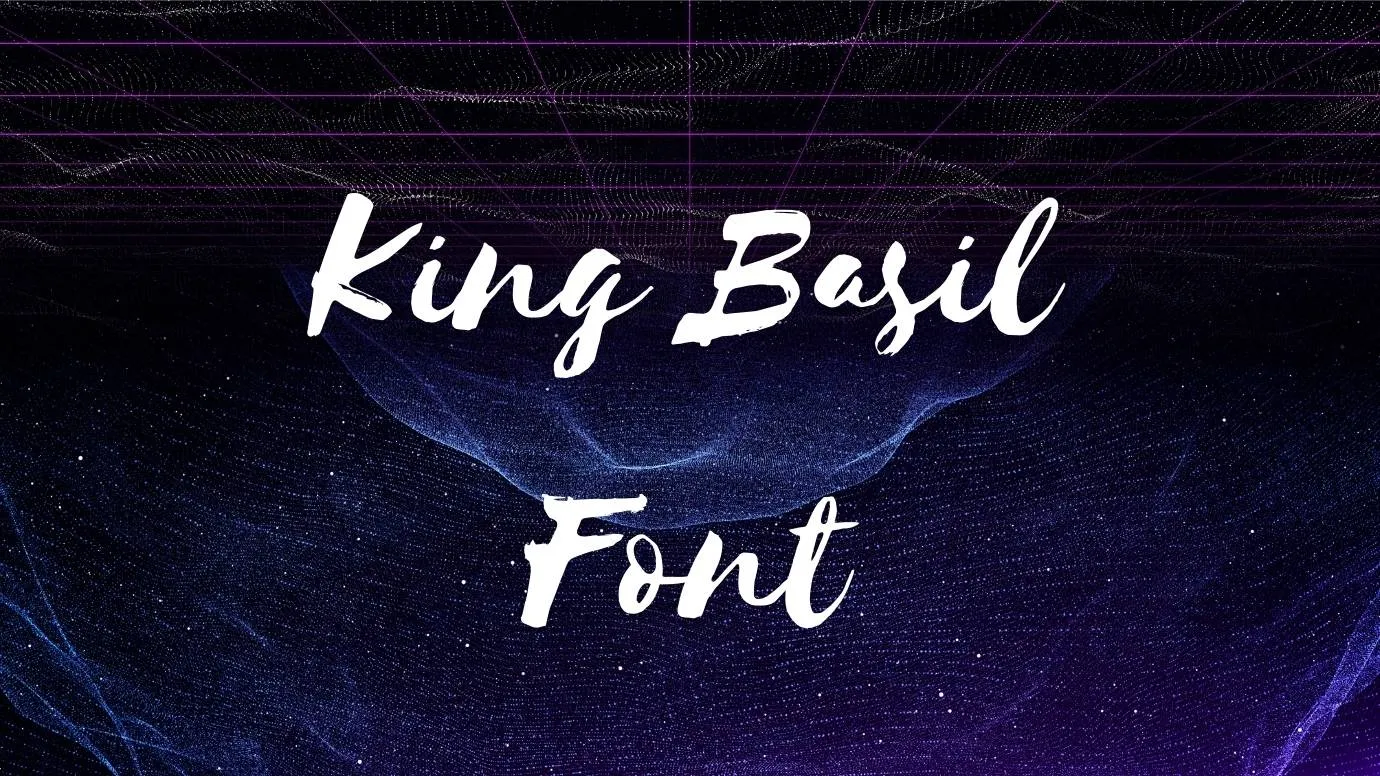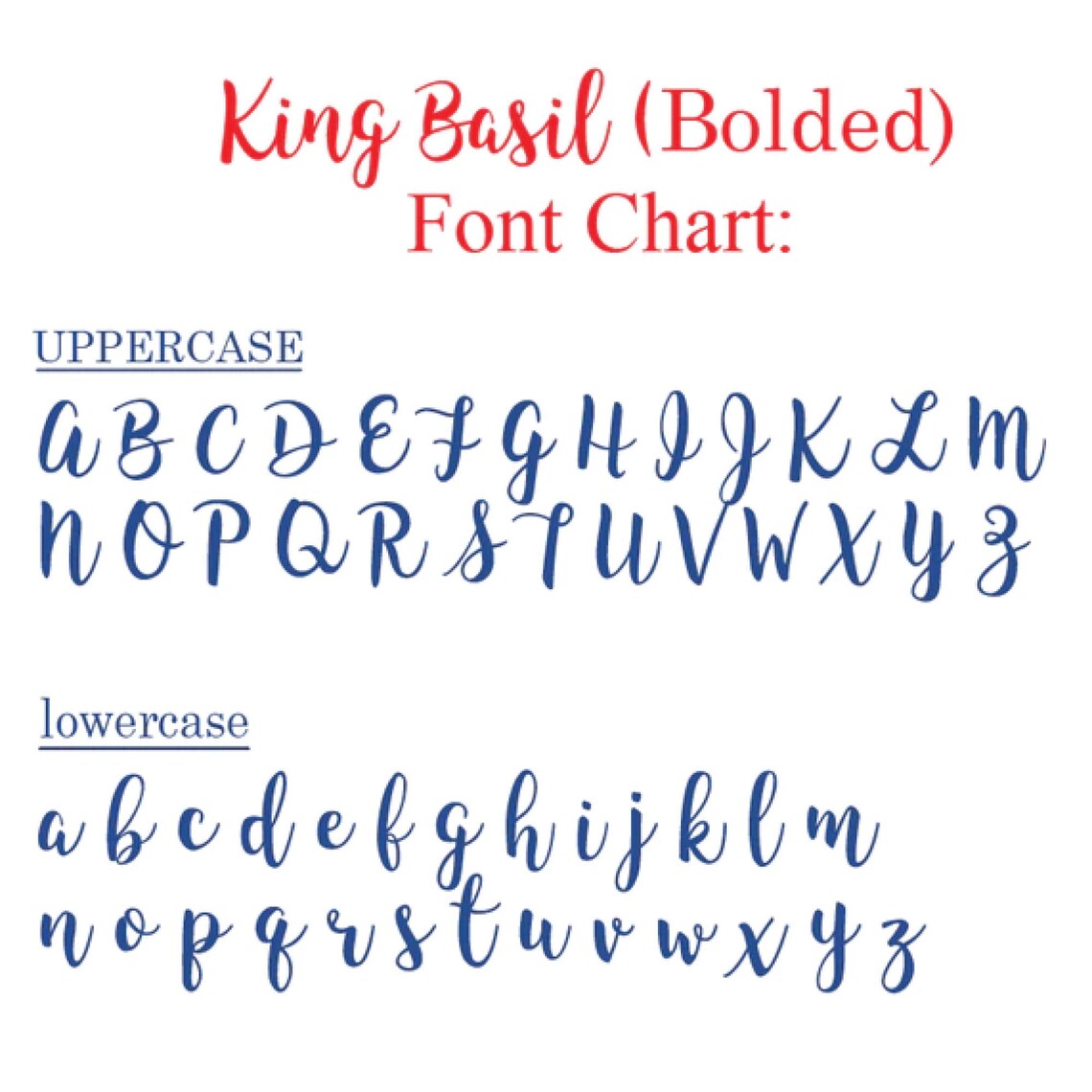
King Basil Font For Cricut . Download king basil (1597) instantly now! King basil is the perfect font for all your fun designs. This typeface has four styles and was published by missy meyer. Say hello to king basil: The king basil font was designed by missy meyer. Introducing king basil (formerly known as spiffy mcgee, before. Trusted by millions + easy to use font files + full support. King basil is a brush script font family. 10 of my favorite fonts to use with my cricut machine. Download the latest king basil font for windows, mac, & linux exclusively at font canyon. You can also visit the author.
10 of my favorite fonts to use with my cricut machine. Trusted by millions + easy to use font files + full support. This typeface has four styles and was published by missy meyer. You can also visit the author. Say hello to king basil: King basil is the perfect font for all your fun designs. King basil is a brush script font family. The king basil font was designed by missy meyer. Introducing king basil (formerly known as spiffy mcgee, before. Download king basil (1597) instantly now!